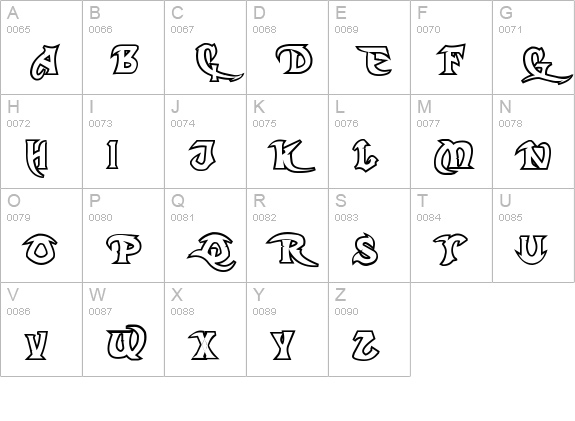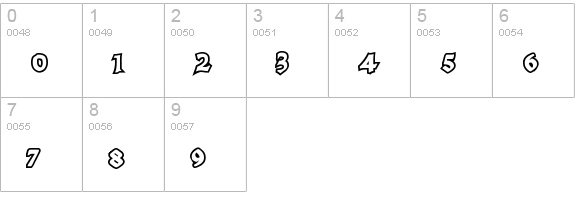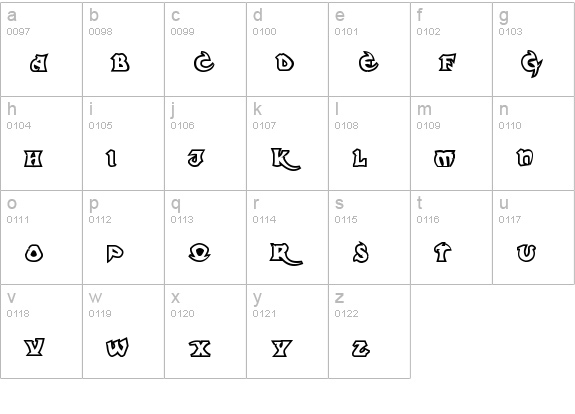
Dark Crystal Outline Font Details
Dark Crystal Outline font is a captivating and mysterious typeface that exudes a sense of enigma and intrigue. Its intricate outlines and sharp edges give it a distinct and bold appearance that is perfect for adding a touch of darkness to your designs. This font is ideal for creating eye-catching titles, posters, logos, and more. What makes Dark Crystal Outline font even more appealing is that it is available for free download at FontsMarket.com. You can easily access this unique font and incorporate it into your projects to give them a striking and memorable look. Embrace the darkness and unleash your creativity with Dark Crystal Outline font today!